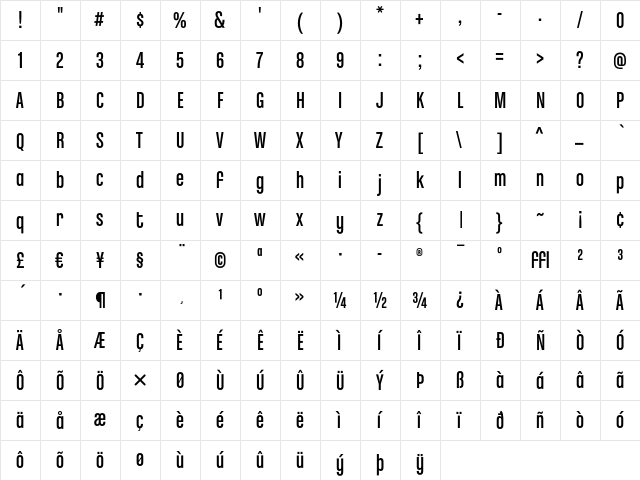
ChaletComprime CologneEighty
| Designer | Paul van der Laan/House Industries |
Design Context for ChaletComprime Typeface
ChaletComprime is a composed and adaptable typeface that performs quietly and consistently across a wide range of design contexts.